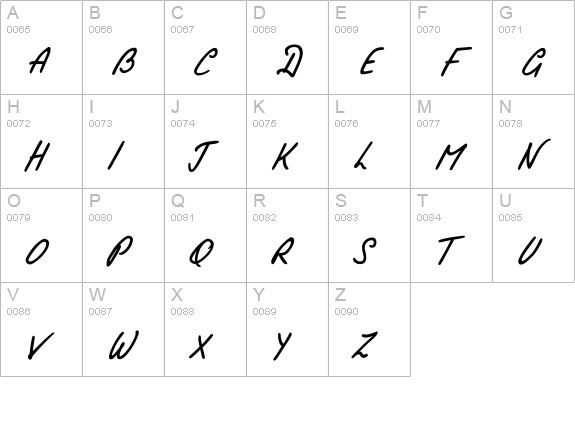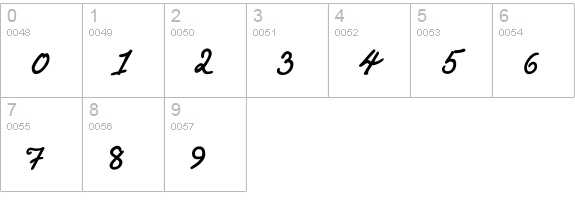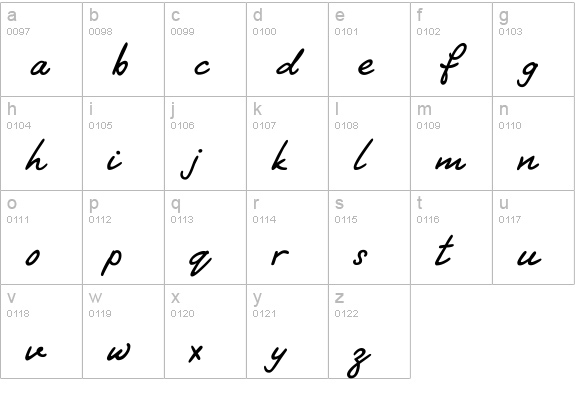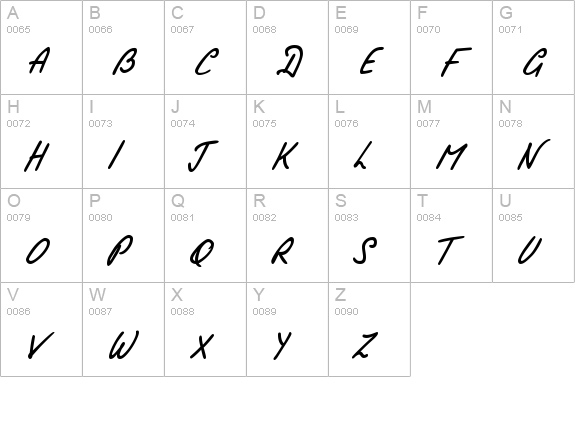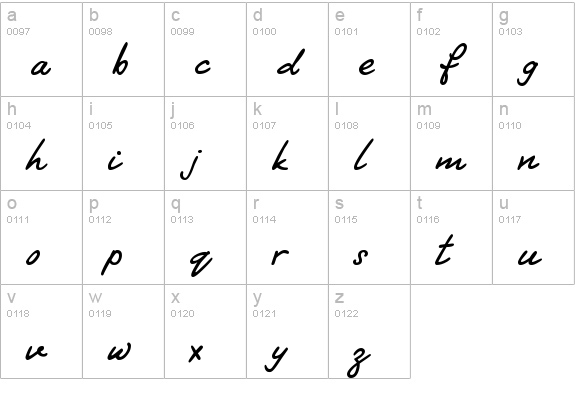
PT Script Stream Font Details
PT Script Stream font is a beautifully crafted typeface that exudes elegance and sophistication. This flowing script font features delicate curves and intricate details that make it perfect for adding a touch of charm to any design project. Whether you're working on invitations, branding materials, or any other creative endeavor, PT Script Stream font is sure to make a lasting impression. What's even better is that PT Script Stream font is completely free to download at FontsMarket.com. This means you can easily access this stunning font and incorporate it into your projects without any cost. Don't miss out on the opportunity to enhance your designs with the timeless beauty of PT Script Stream font - download it today and let your creativity flow freely.